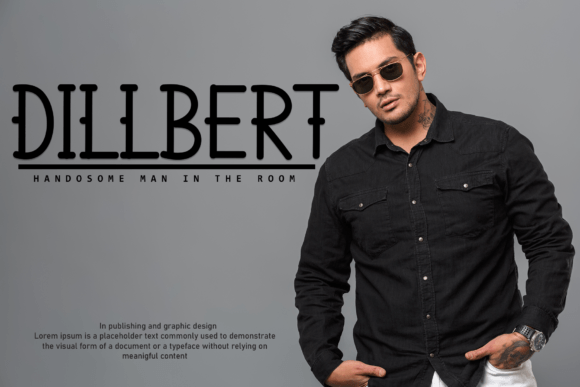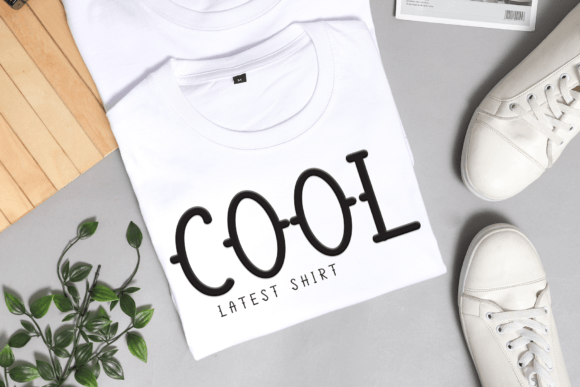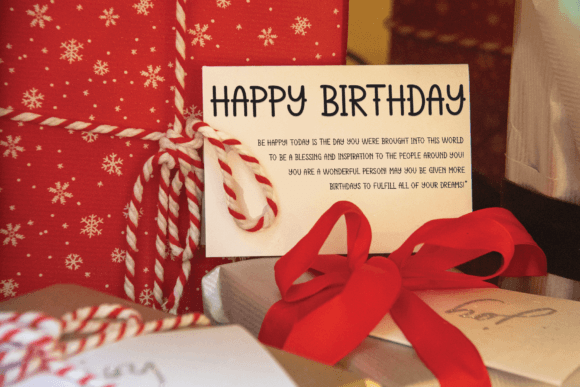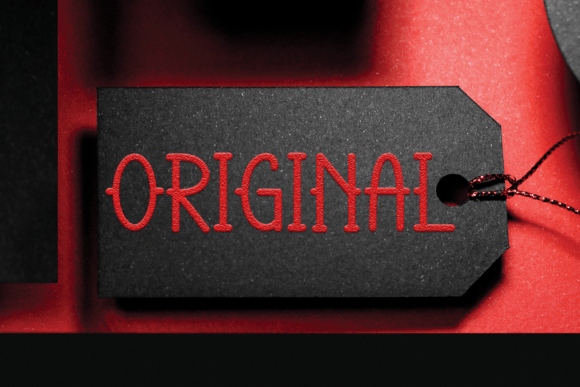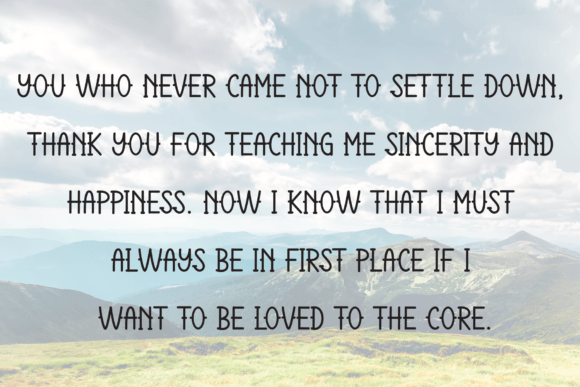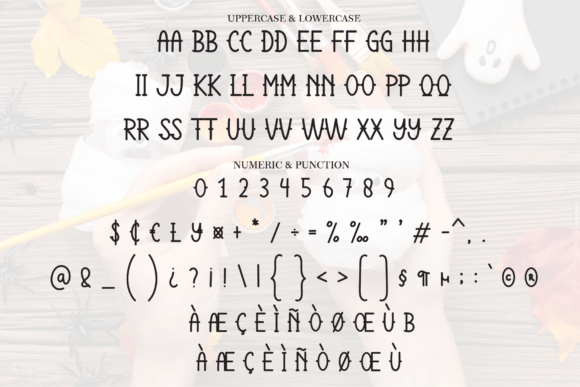
Introduction to Minion Handmade Font
As a designer, there’s nothing quite like the thrill of bringing a creative project to life. It’s that moment when the ideas start flowing, and the possibilities seem endless. For me, it’s the feeling of rummaging through a stash of colorful papers, markers, and fonts, searching for the perfect combination to make my design truly special. And that’s exactly what the Minion Handmade Font is all about – adding a personal touch to your design with its sweet and friendly handwritten style.
With its fresh and neat appearance, the Minion Handmade Font is an ideal choice for designers looking to add a fun touch to their projects. Whether you’re creating wedding invitations, cards, or any other design, this high-quality font is sure to make your work stand out. Plus, it’s completely free to download, making it a valuable resource for designers of all levels.
Key Features of Minion Handmade Font
- High-quality, hand-crafted design for a unique and creative project
- Unique, handmade feel that sets it apart from other fonts, adding a touch of personality to your creative project
Honest Review: Minion Handmade Font
I recently stumbled upon the Minion Handmade Font, and I must say it’s a great addition to any design resource. This font is perfect for creative projects that require a personal touch. The high quality of the font makes it stand out, and I appreciate that it’s available as a free download.
- ✨ High quality, clean design that’s perfect for body text
- ✨ Can be used for a variety of creative projects, from logos to brochures
However, I do have a few minor complaints:
- ⚠️ Limited font styles available, which may not be ideal for more complex designs
- ⚠️ Not ideal for large-scale text, as it can become difficult to read
Overall, I’m impressed with the Minion Handmade Font. It’s a great choice for designers who want a high-quality, unique font for their creative projects. Just be aware of its limitations, especially when it comes to large-scale text. With a transparent background, it’s easy to use in a variety of design contexts.
Use the Minion Handmade Font for invitations, posters, and other creative projects. To get the most out of it, experiment with different font sizes, colors, and combinations. You can also use it to add a personal touch to your designs.